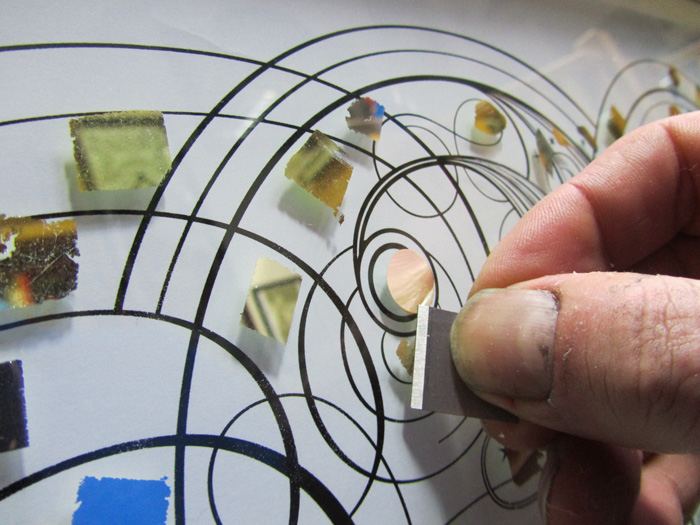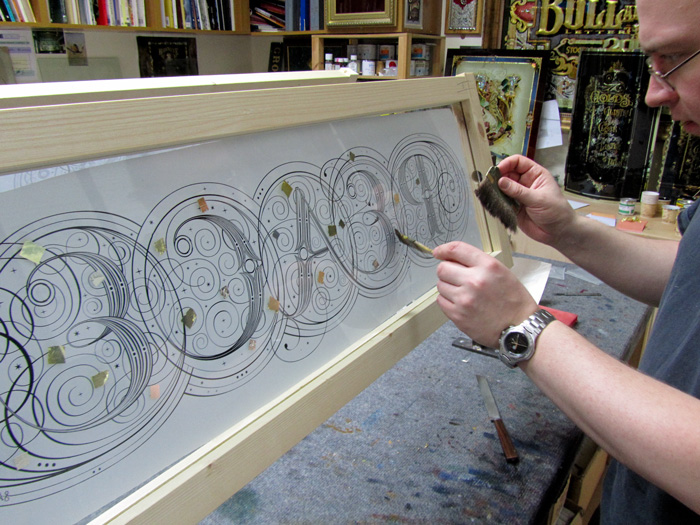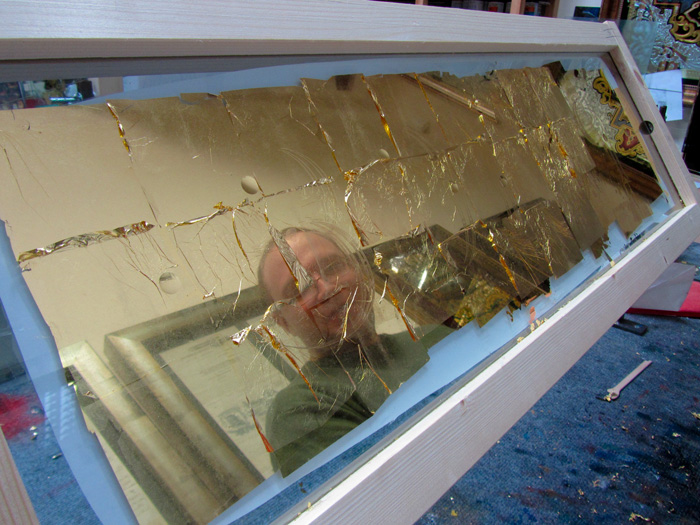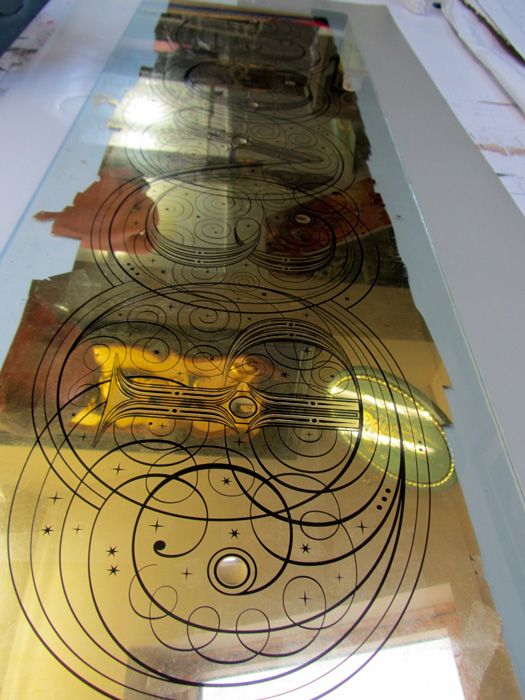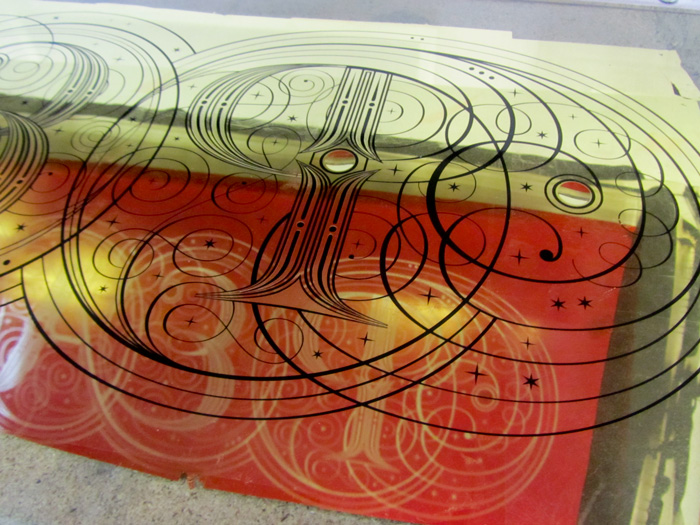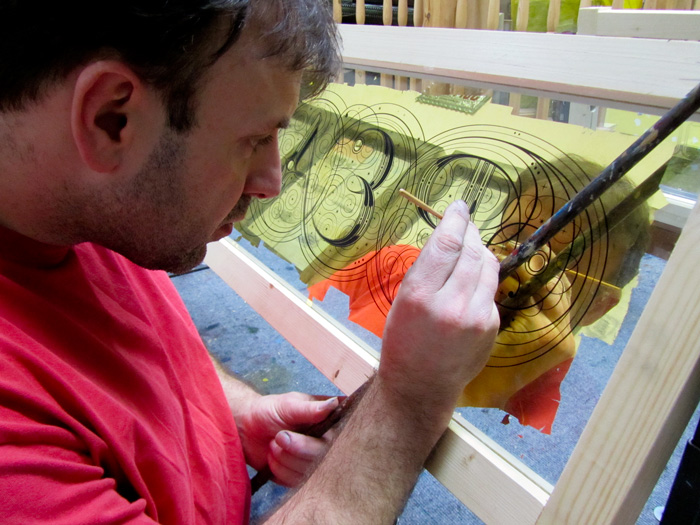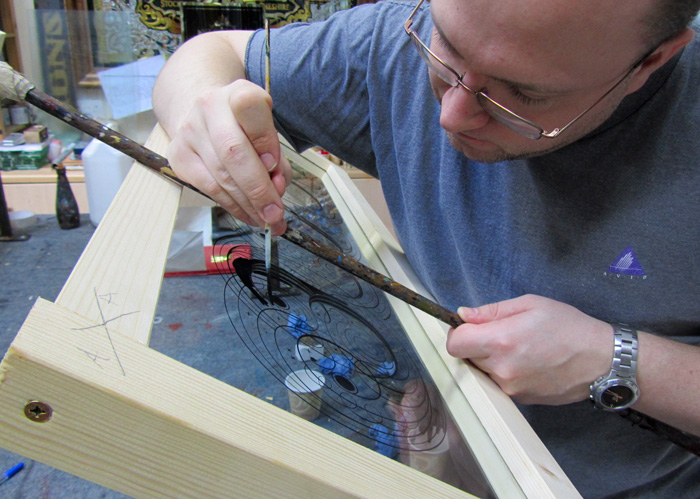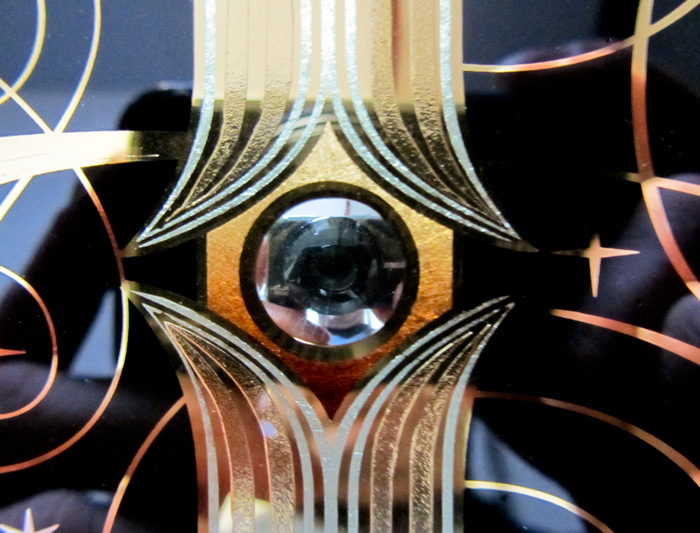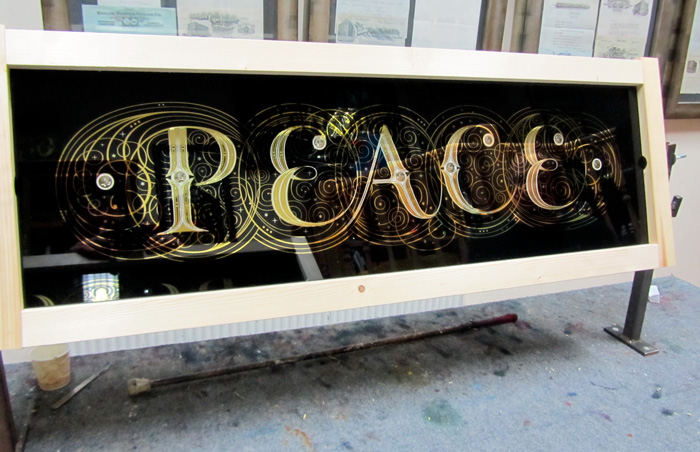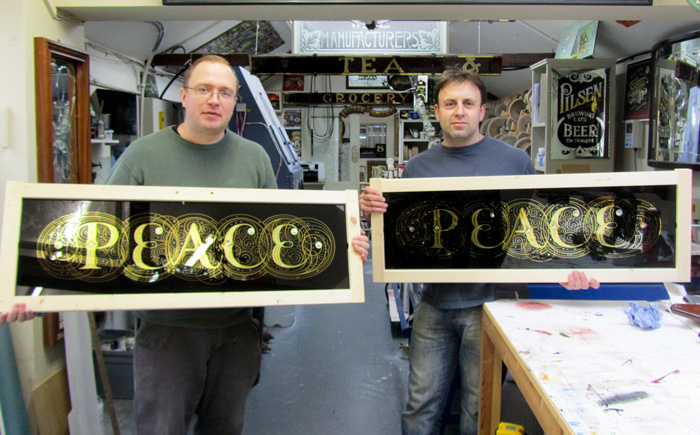
Peace Gold Leaf Workshop
I had a Gold Leaf Glass Workshop last week with a chap from London. Seb Lester a very talented typographer designed some great looking artwork with the word ( Peace) for the course.
The lettering was acid etched with wheel cut punties. The stars were gilded in 16crt and 12crt and the lettering and scrolls is 23crt gold.We managed to gild the puntie circles in 12crt with a 23crt circle around them. This was Seb's first time gilding glass and signwriting, he did a great job. These glass panels will be framed in a modern black square frame.
Some more images of the workshop.
Excellent job on the lettering, graphic design by Mr. Lester.
This finished glass is a beautiful example of gilded art destined to be displayed in a gallery.
Never doubt the English Gilder.
That turned out very nice guys! Has a nice flow to it.
Wow! Being new to the art form, I am blown away by the control you guys exhibit in this type of work. Beautiful! I agree with Tony, it belongs in a gallery.
Looks great Dave ! How are you get the gold leaf back up art work on , by screening or hand painting ?
Rod. The artwork is screened on these panels but in some places I did add more scrolls but it was difficult.. I like this method for fine details as it would be impossible do achieve this by hand.
I can get down pretty tight by brush on most stuff but when it needs to look right and unform screening always wins in my opinian. I will admit I do miss the feel of a brush in your hand when backing up some of these panels, I make it a point to use the brush after the screening for the rest of the work.
On bigger glass panels a brush is king. If you have plenty of acid work all that is needed is to follow the edge and the carbon paper line...
How do you make your screens Dave ? Just came back from Ron's work shop where taught the use of photo emulsion. I was raised using hand cut film , Now I plottercut film and hand adhere but loth it. I would like to get set up with an emulsion methoed system
I use a 90 mesh for fine work Robert, it must be a different number set up for you guy's in the States. It says the mesh size on the alluminium screens over here this one says 90 ,will look into it more incase they have it marked up wrong... Thanks